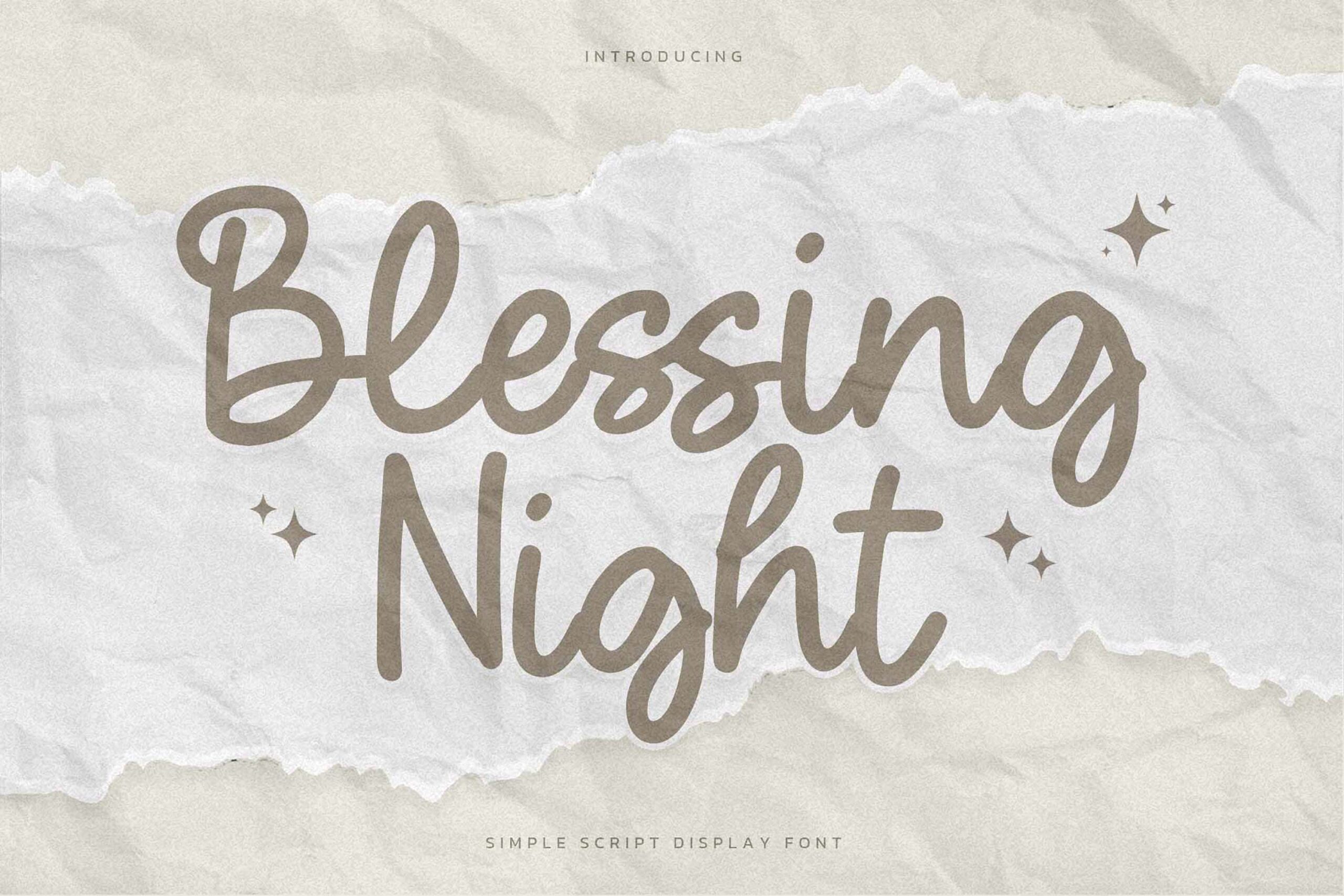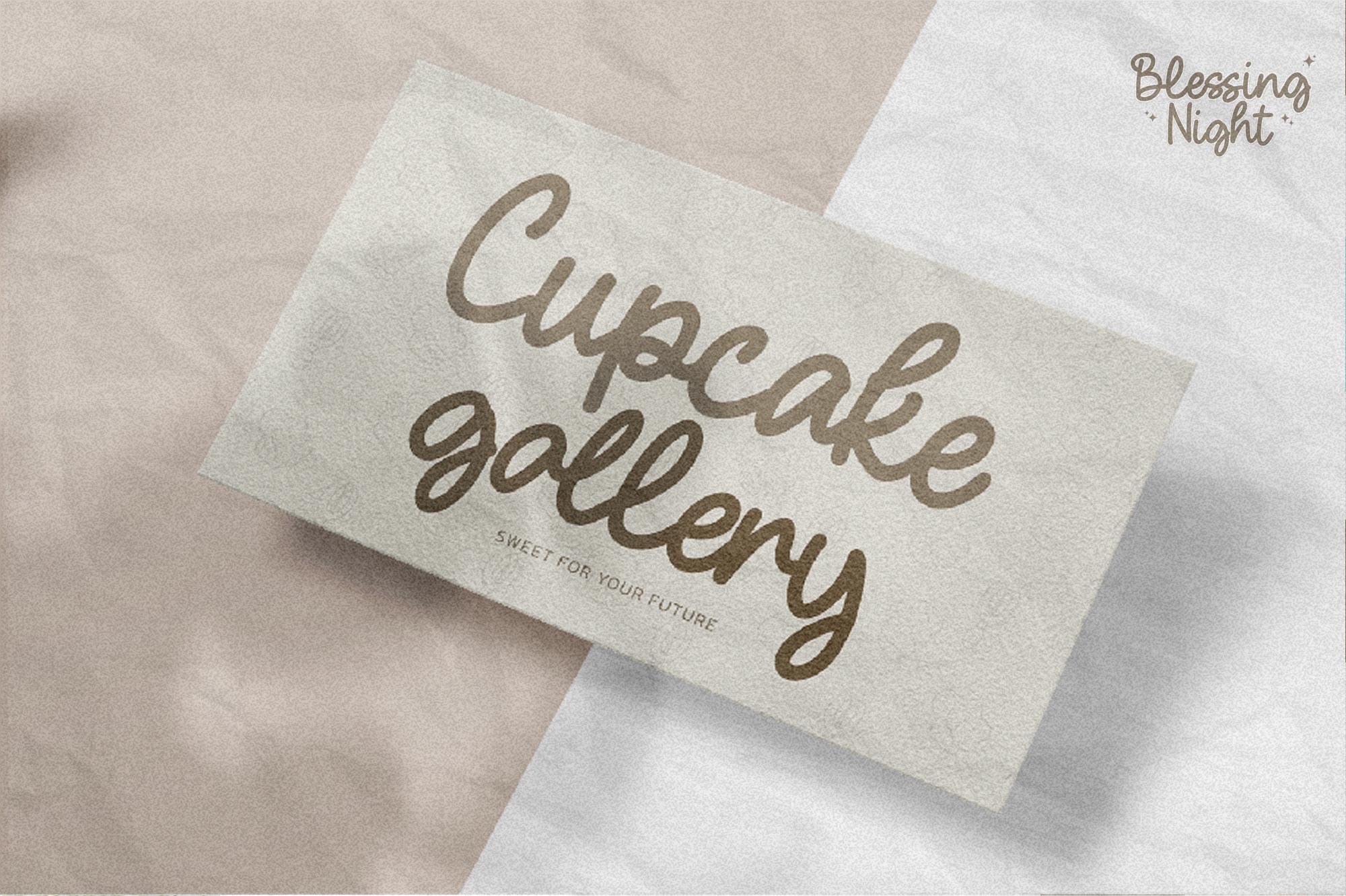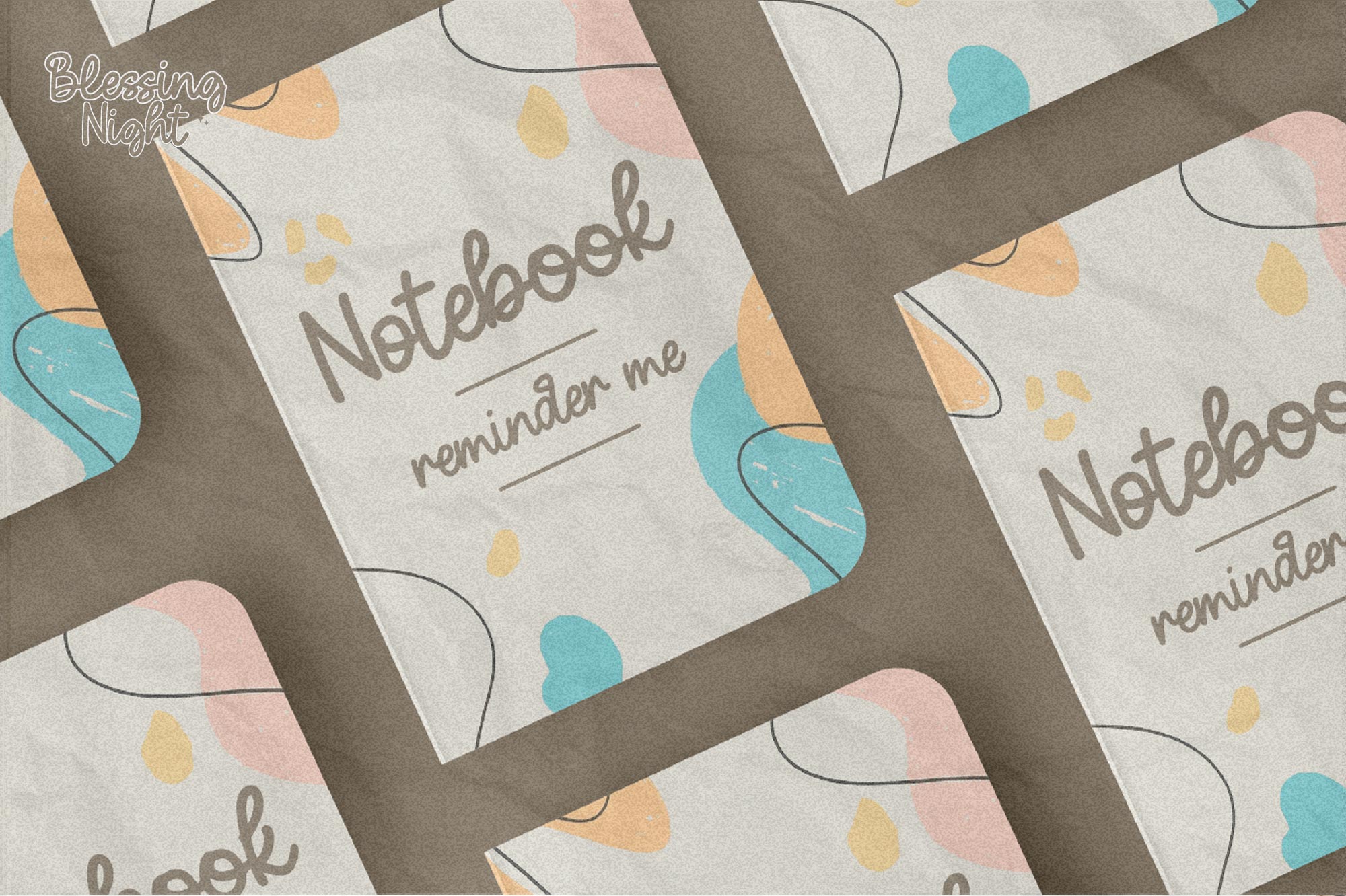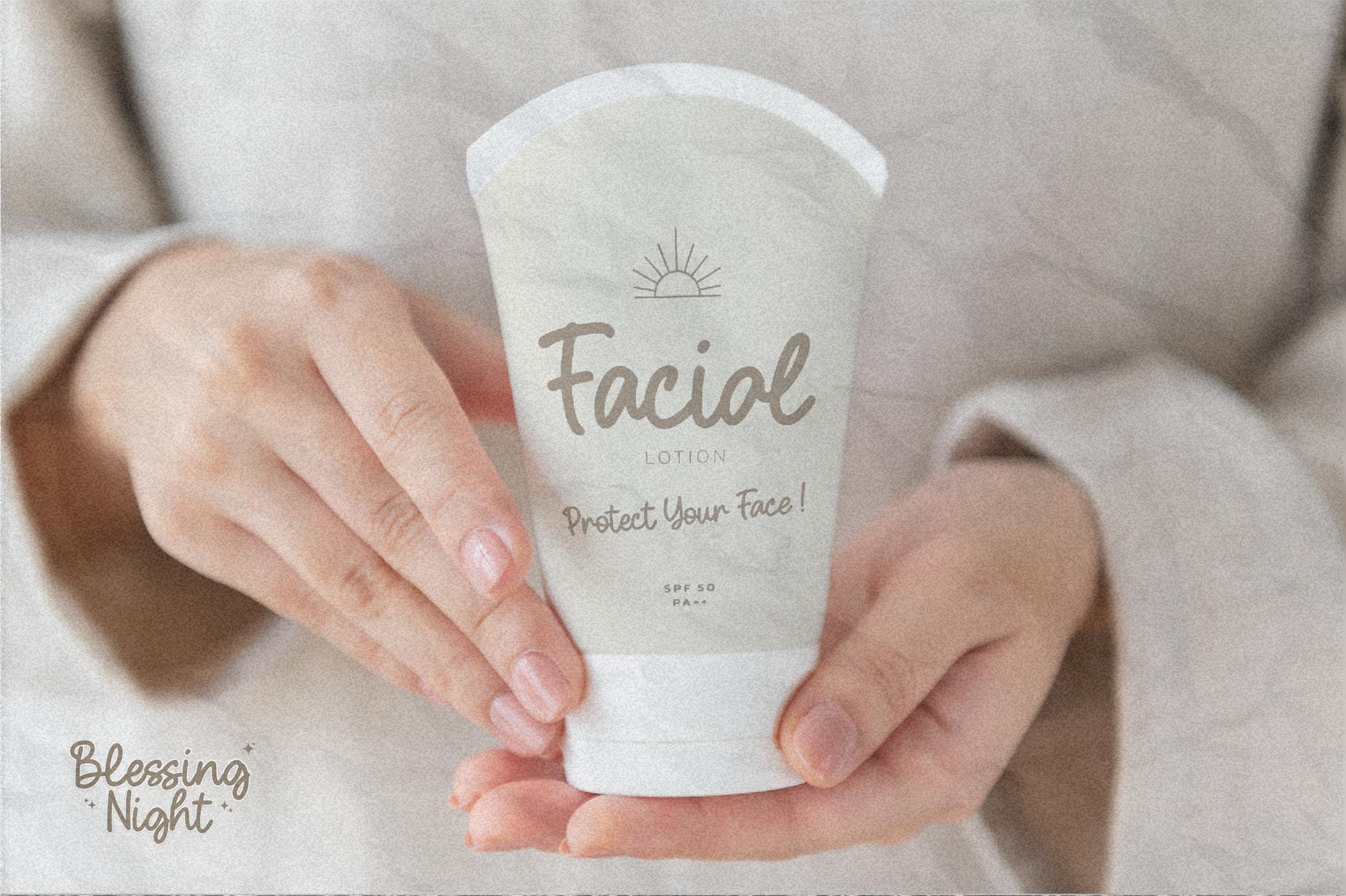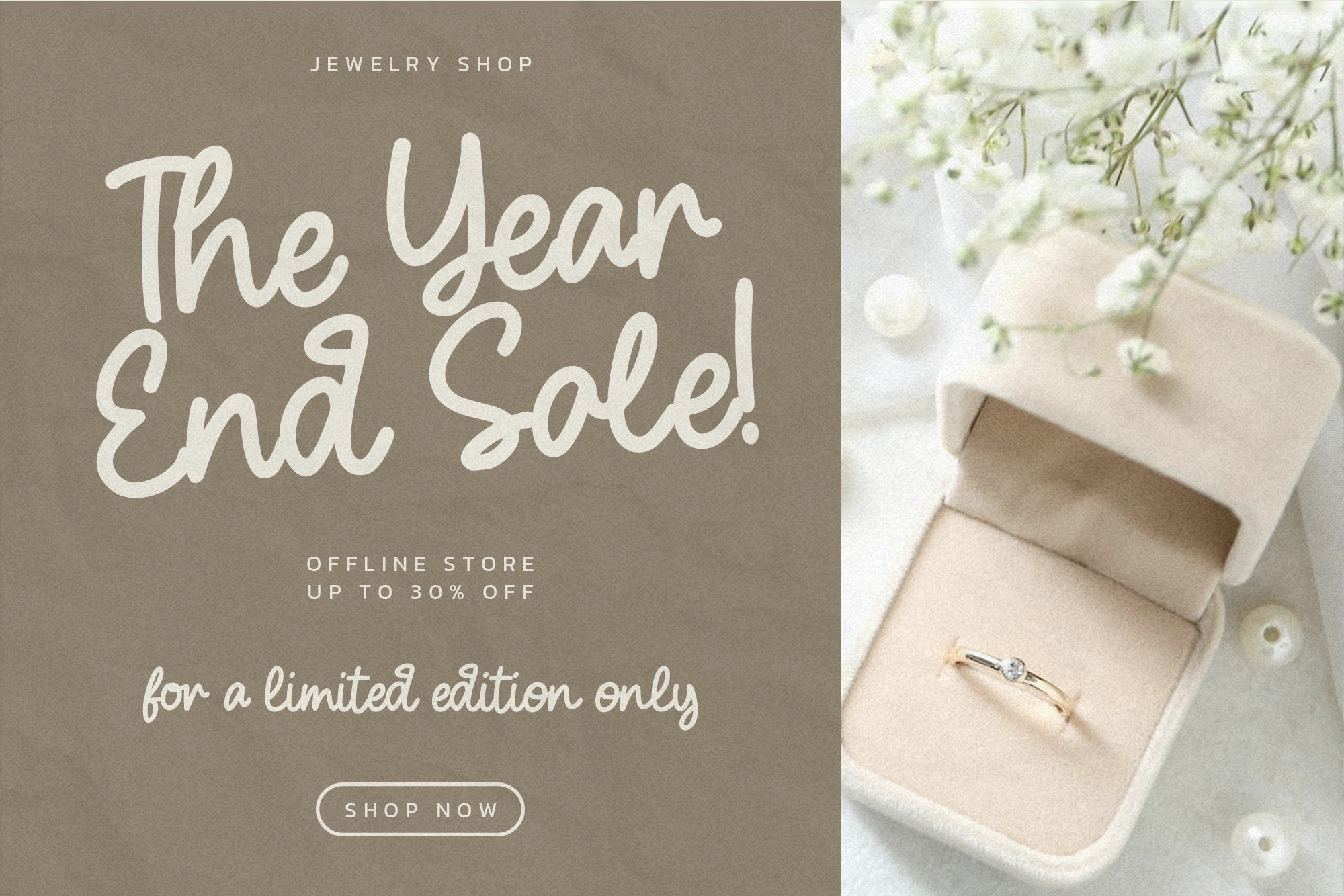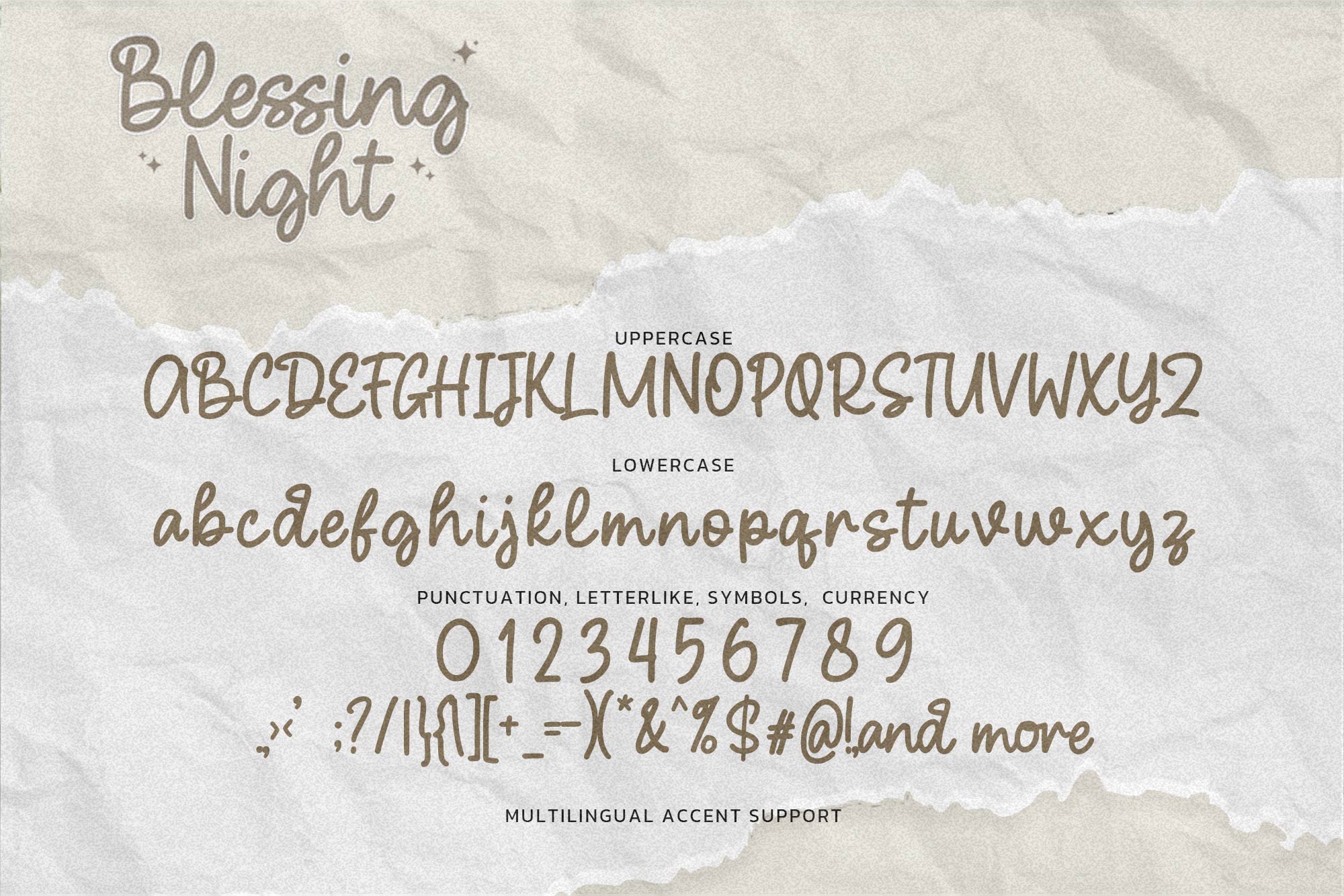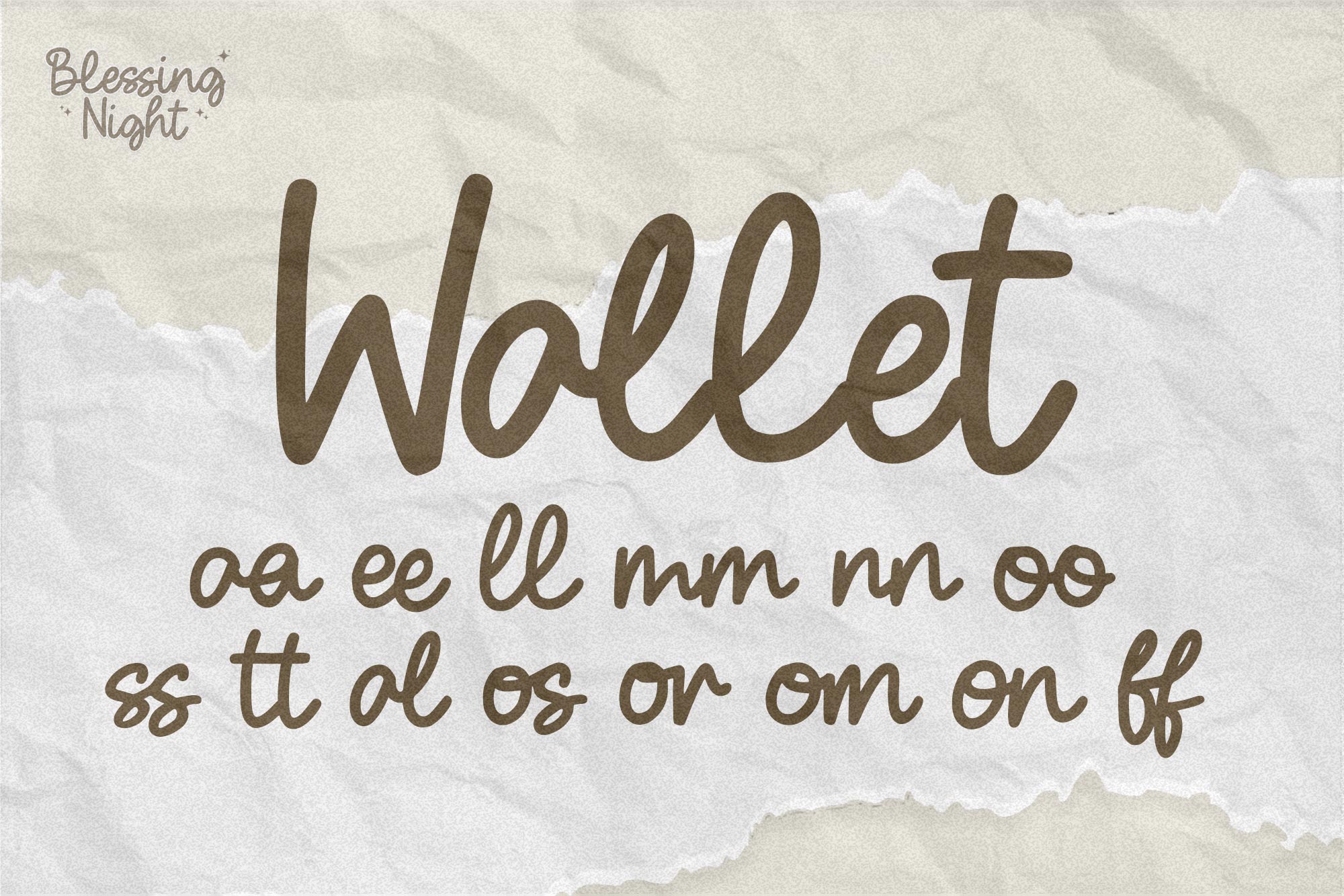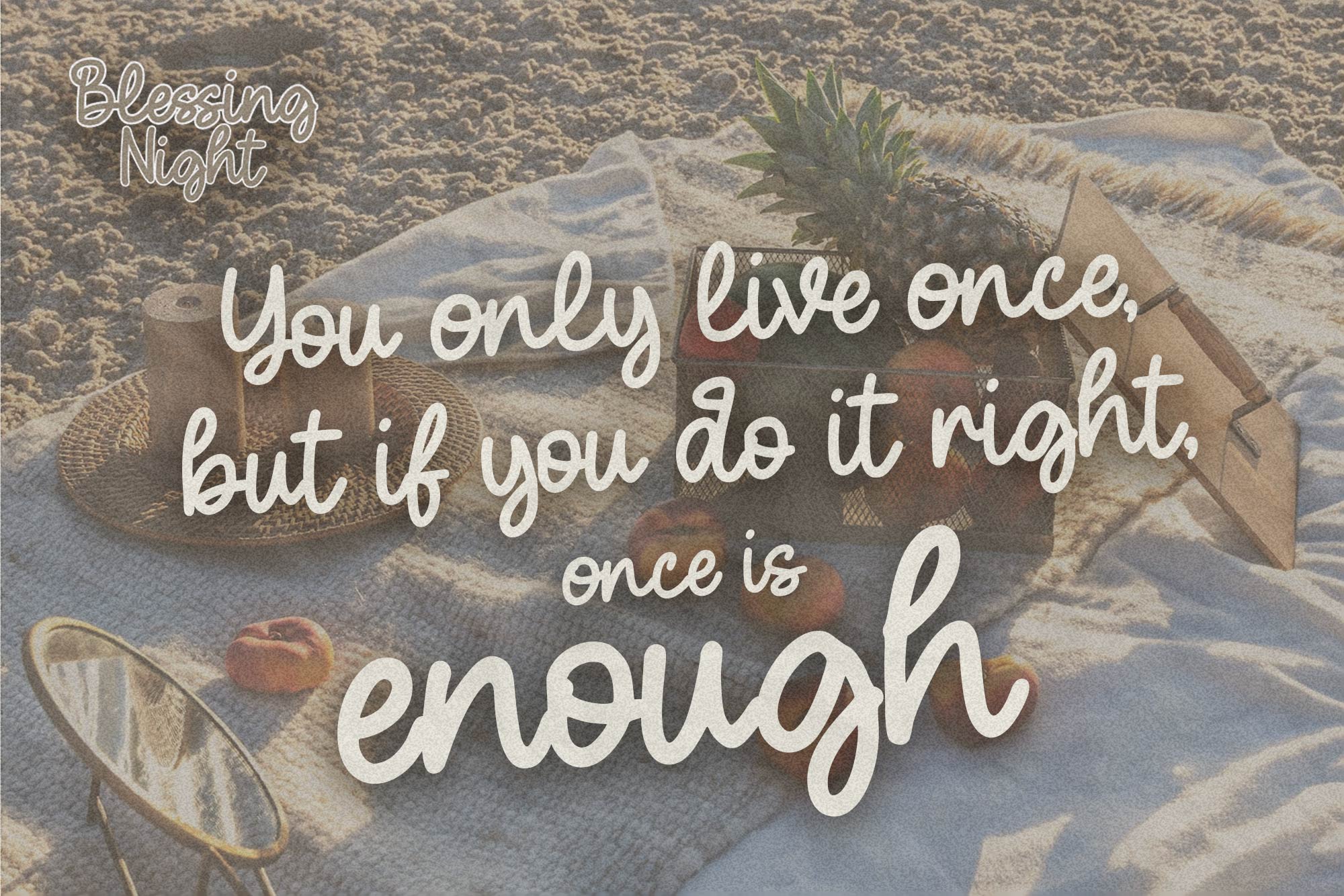
Blessing Night – Simple Script Display Font , modern style and dramatic movement that is written casually and quickly.
The best for labels, poster, project designs look modern, authentic and natural. It’s perfect for labels, quotes, posters, DIY projects, branding, packaging, greeting cards, websites, photography overlays, signs, scrapbooking, tags and so much more! That is why Blessing Night has a textured, and unique characteristic more natural look. You can activate Ligatures glyphs OpenType panel.